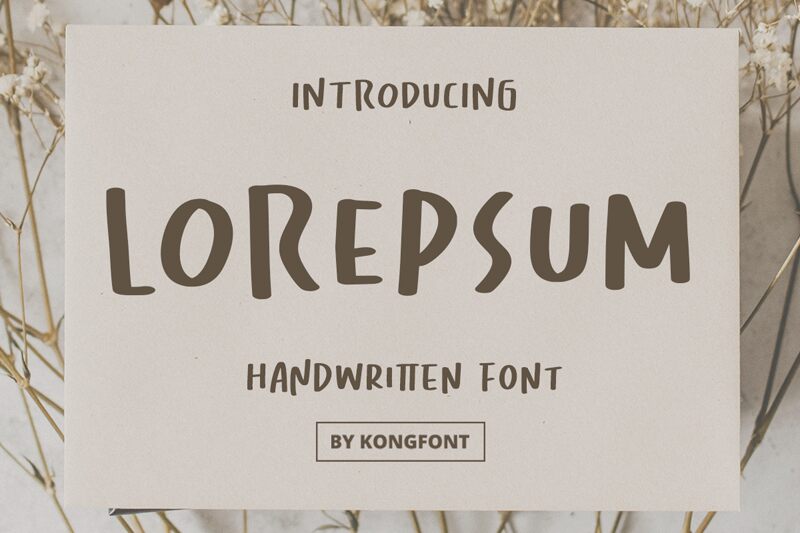
Lorepsum font, crafted by Kong Font, exudes a charming handwritten style that captures the essence of personal expression. Its aesthetic appeal lies in the fluidity and playfulness of its strokes, drawing the eye with a delightful mix of organic curves and spontaneous flair. The pronounced weight brings a sense of warmth and approachability, making it an ideal choice for designs that seek to establish a friendly rapport.
Perfect for branding, invitations, or any creative projects that require an intimate touch, Lorepsum effortlessly enhances visual storytelling. Whether showcased on promotional materials or woven into digital content, its unique character adds depth and personality, inviting audiences to engage and connect with your message. Embrace this font to elevate your design endeavors with its distinctive charm.